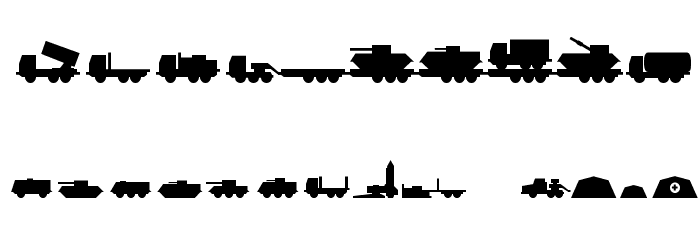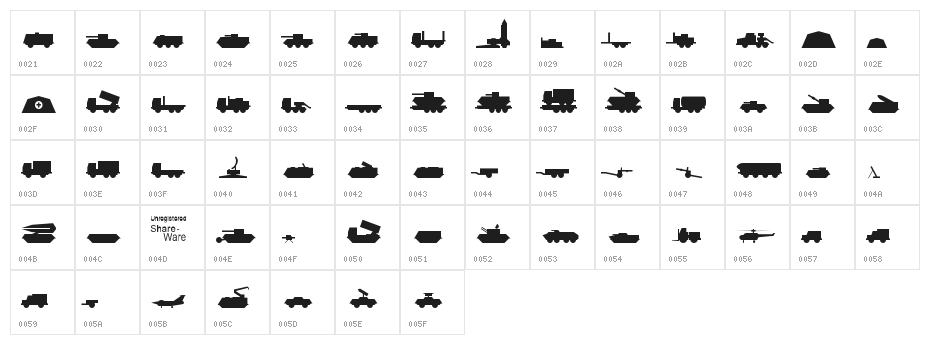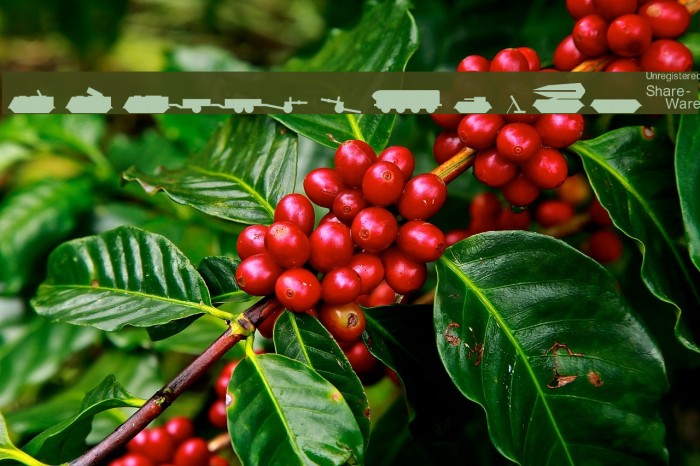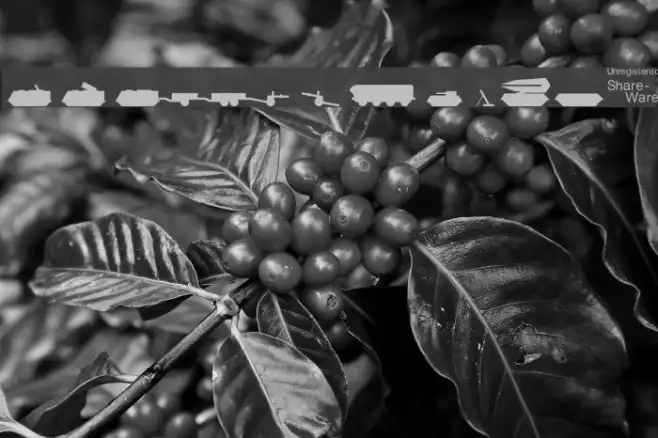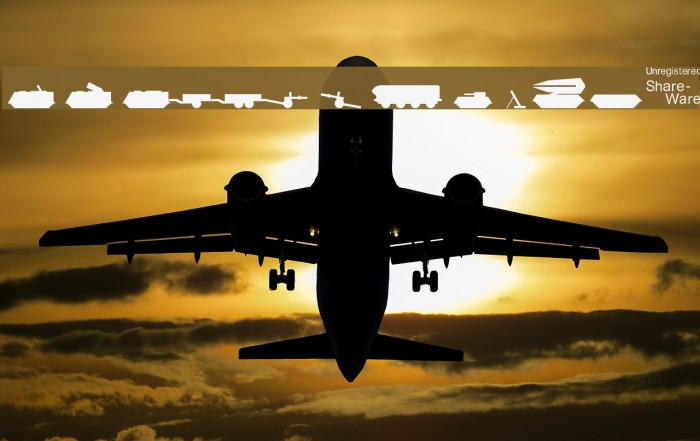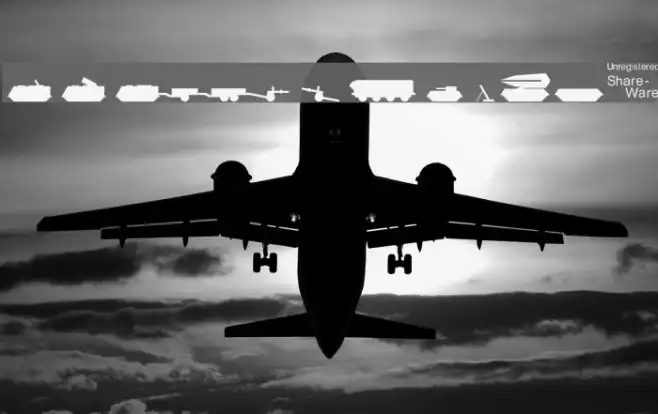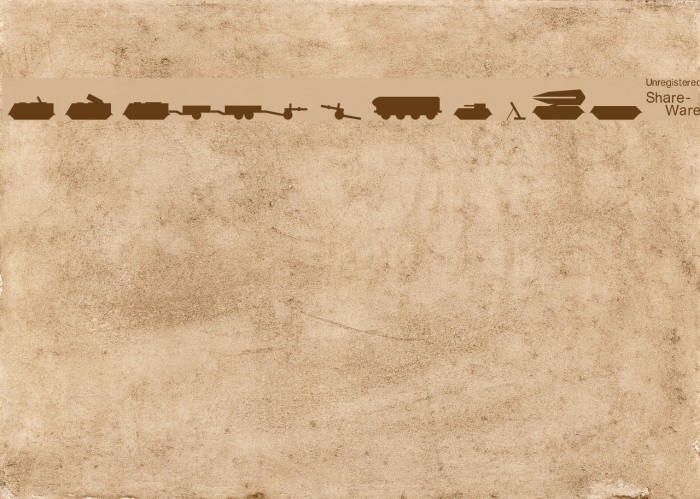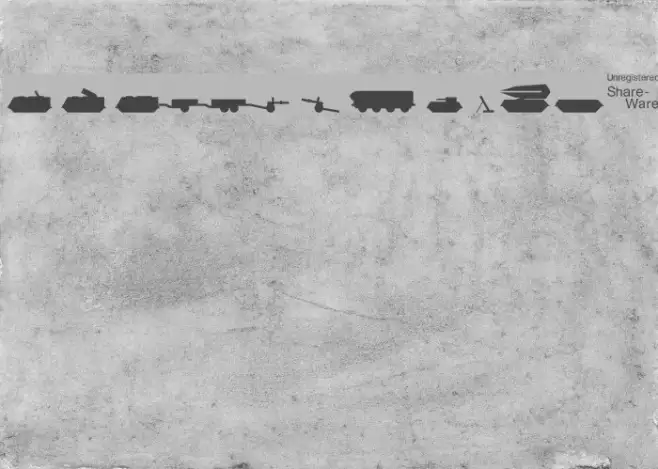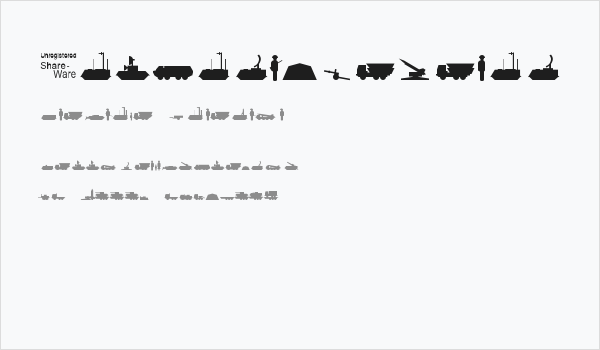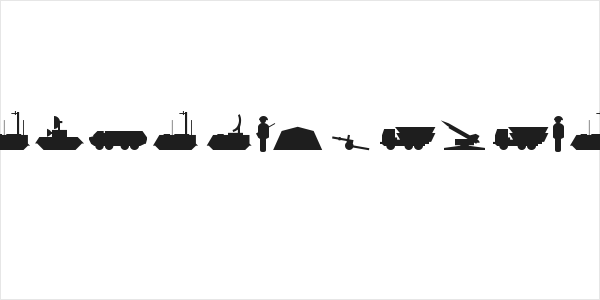
Milpics-Generic Font
Milpics-Generic Description
A collection of solid black military-themed pictograms, including vehicles, equipment, and personnel, rendered in a simple, silhouette style with uniform stroke weight and no internal detail.
| Overall Style | Decorative, utilitarian, pictographic |
| Use Case | Icons, signage, infographics, visual communication |
| Proposed Projects | Infographics, educational materials, military presentations, signage, icon sets. |